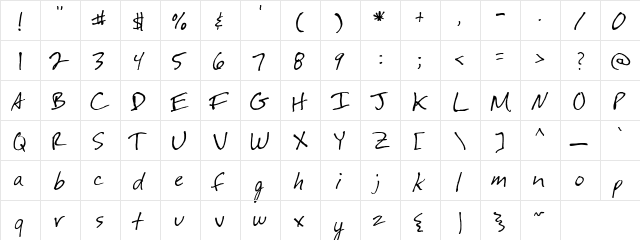
festus! Regular
Design Context for festus! Typeface
festus! is a composed and adaptable typeface that performs quietly and consistently across a wide range of design contexts.